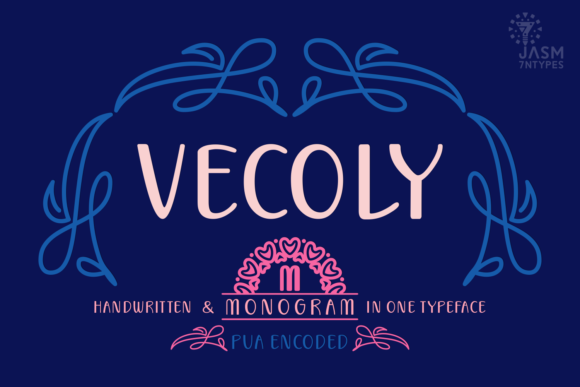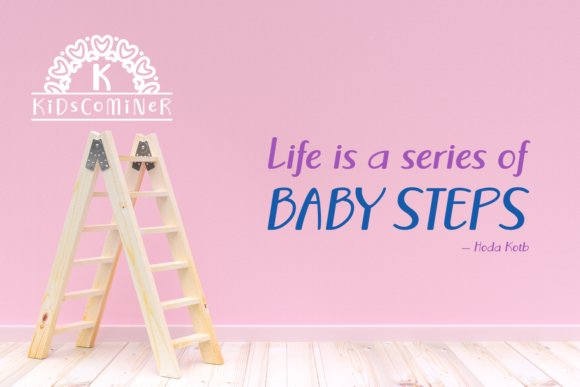
Vecoly Font
About Vecoly Font
Vecoly is a playful handwritten & monogram font, combined in 1 stunning font.
The font comes with stunning embellished monograms inside the characters of the font.